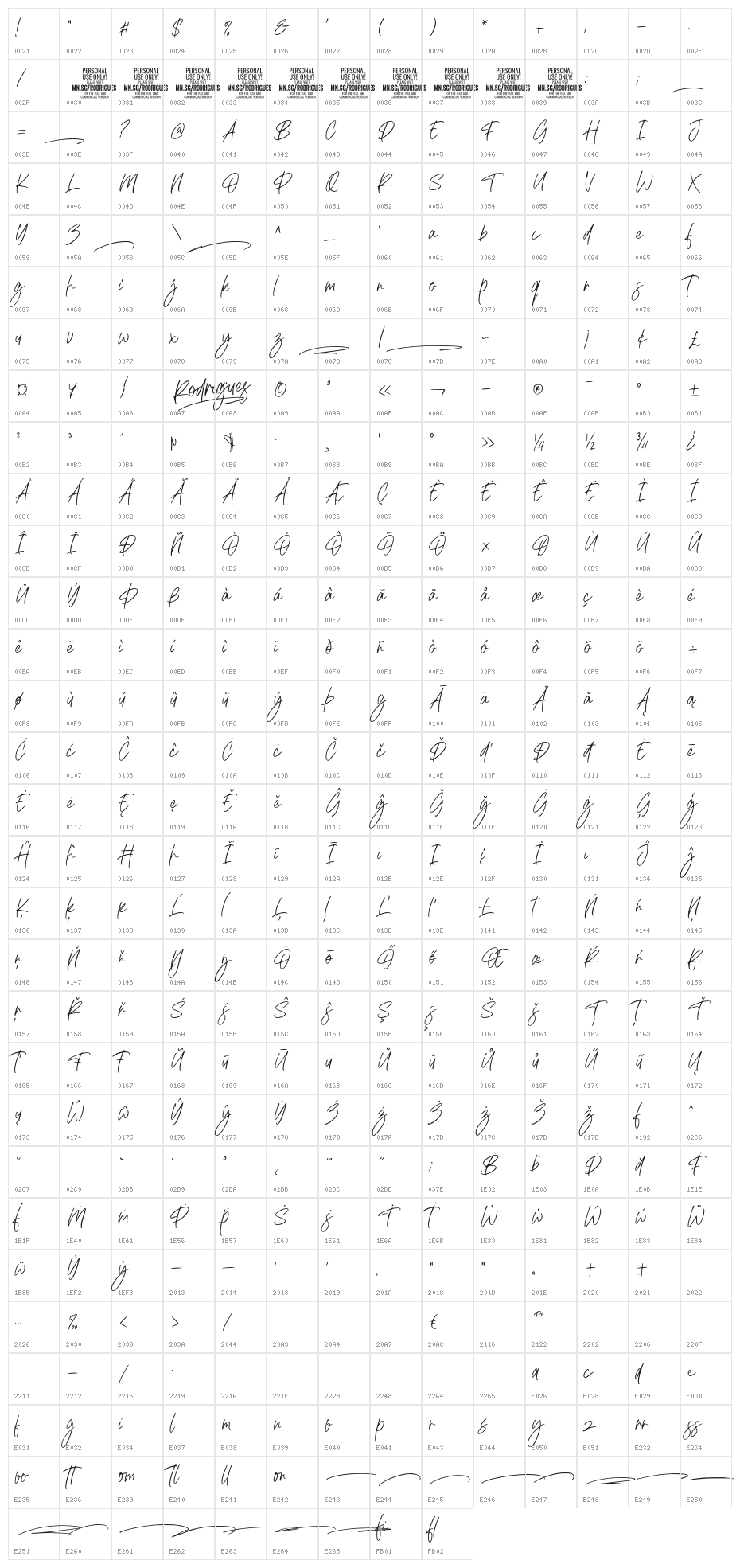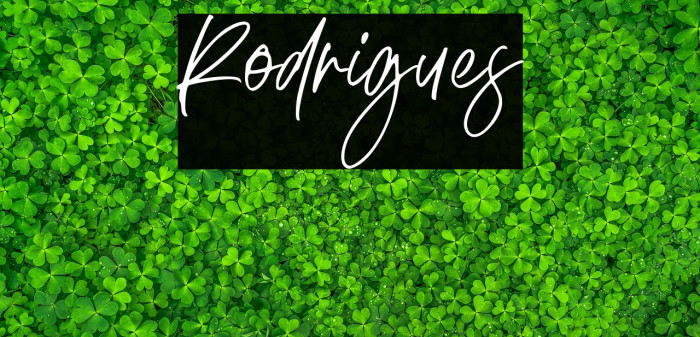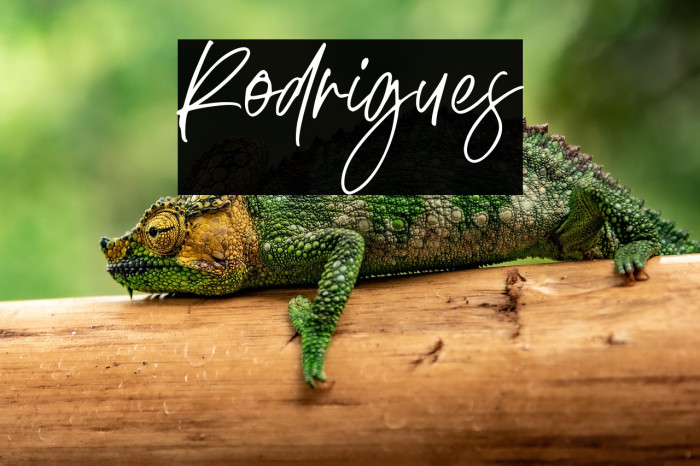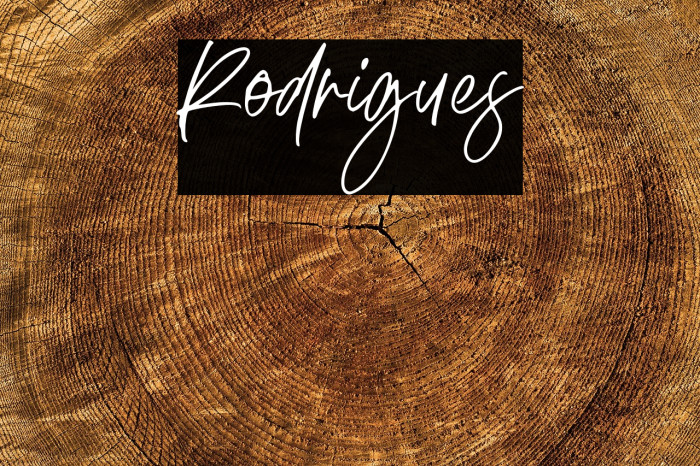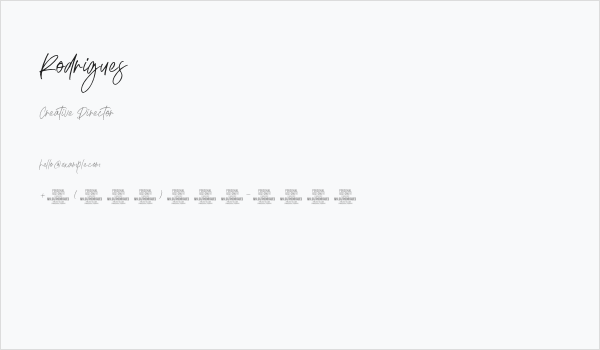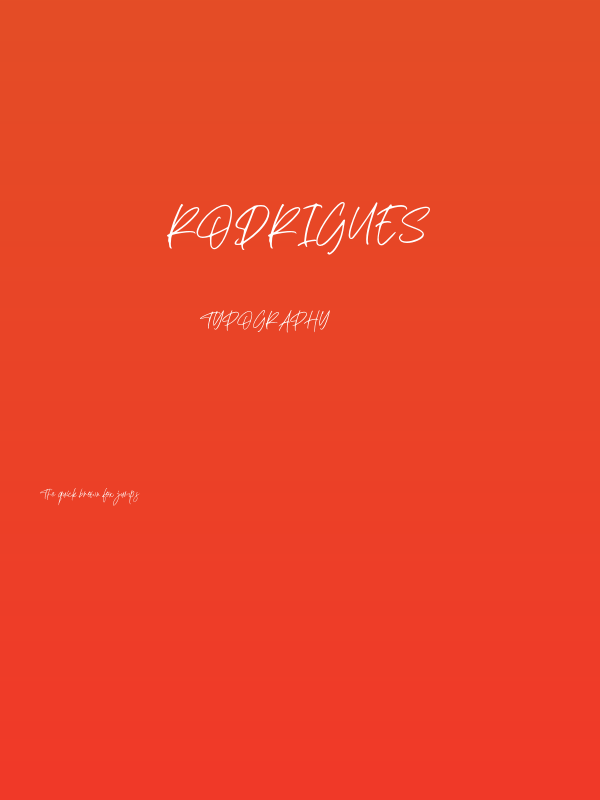
Rodrigues Font
Rodrigues Description
This font features a dynamic and expressive handwritten style, characterized by fluid strokes and a natural flow. The letters are slightly slanted, giving a sense of movement and energy. The uppercase and lowercase letters maintain a consistent style, with some letters featuring unique flourishes that add personality. The numbers and special characters are crafted to match the overall aesthetic, ensuring a cohesive look. This font is ideal for projects that require a personal touch, such as invitations, greeting cards, or branding materials.
| Use Case | Logos, Headlines, Personal projects |
| Proposed Projects | Ideal for invitations, greeting cards, branding, and personal projects. |